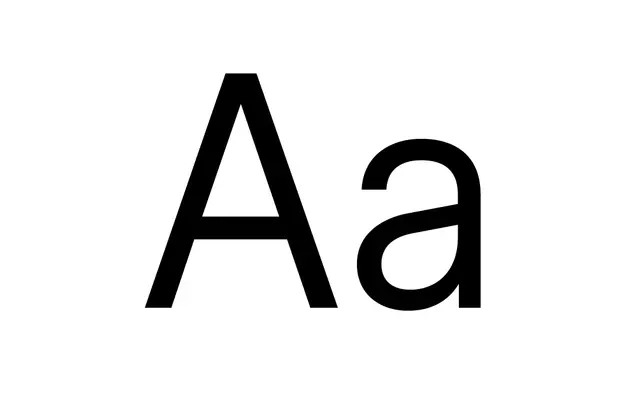
Scto Grotesk B
Scto Grotesk's narrower flavour: a neo-grotesque tuned for economical set widths in six weights with italics, but not a condensed.
Scto Grotesk B is the narrower of the family's two flavours. The foundry stress that B is narrower than A but is not a condensed; instead it serves well when a more economical set width is in order, while keeping all the family's rational details: horizontal and vertical stroke ends across all weights, a straight-legged R, square dots, matching ascenders and caps. Six weights from Thin to Black with matching italics, an extended Latin character set and circled-number extras make it a workhorse partner to Scto Grotesk A.
The narrower flavour of Scto Grotesk; the foundry stress it is narrower than A but not a condensed, intended for economical set widths.